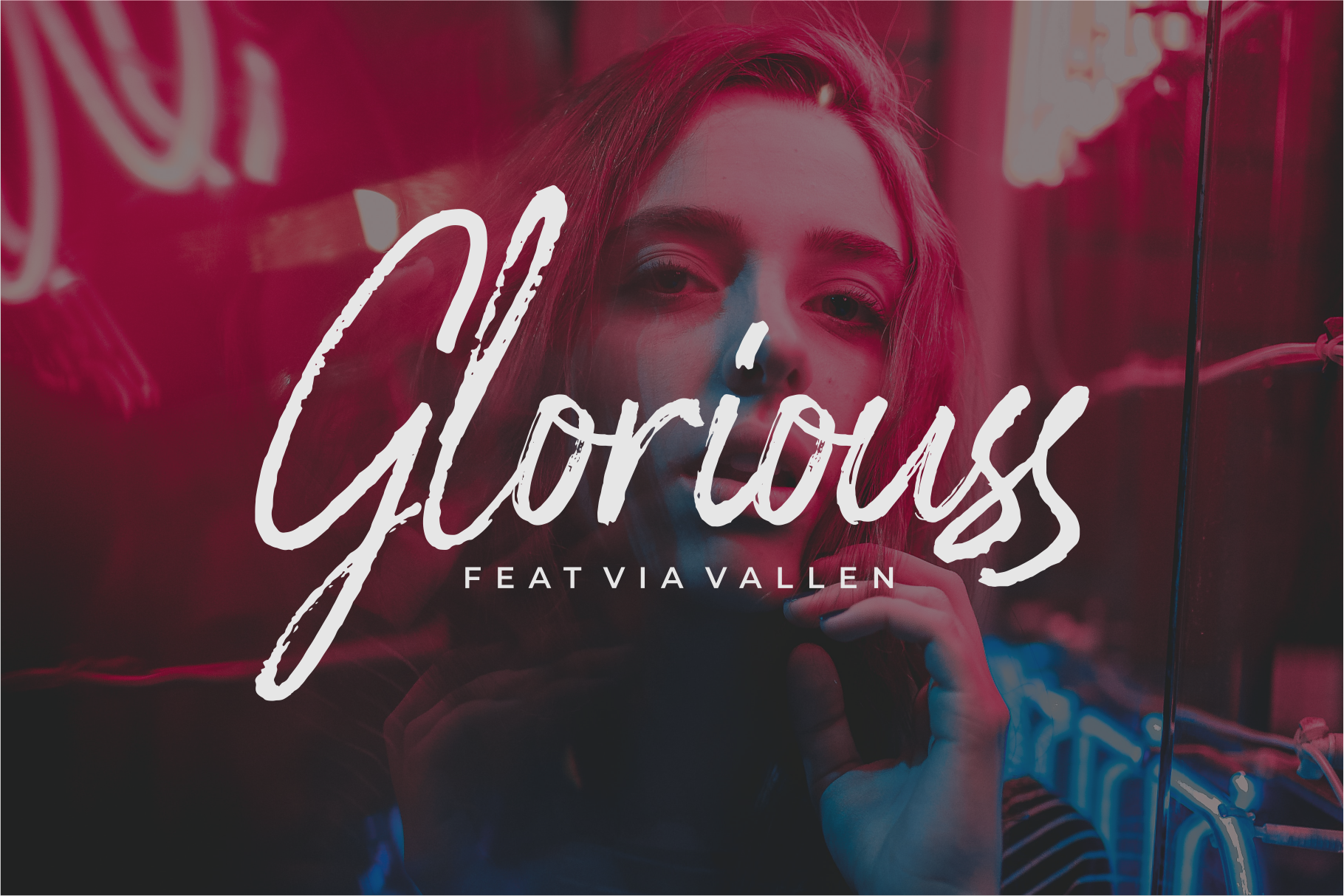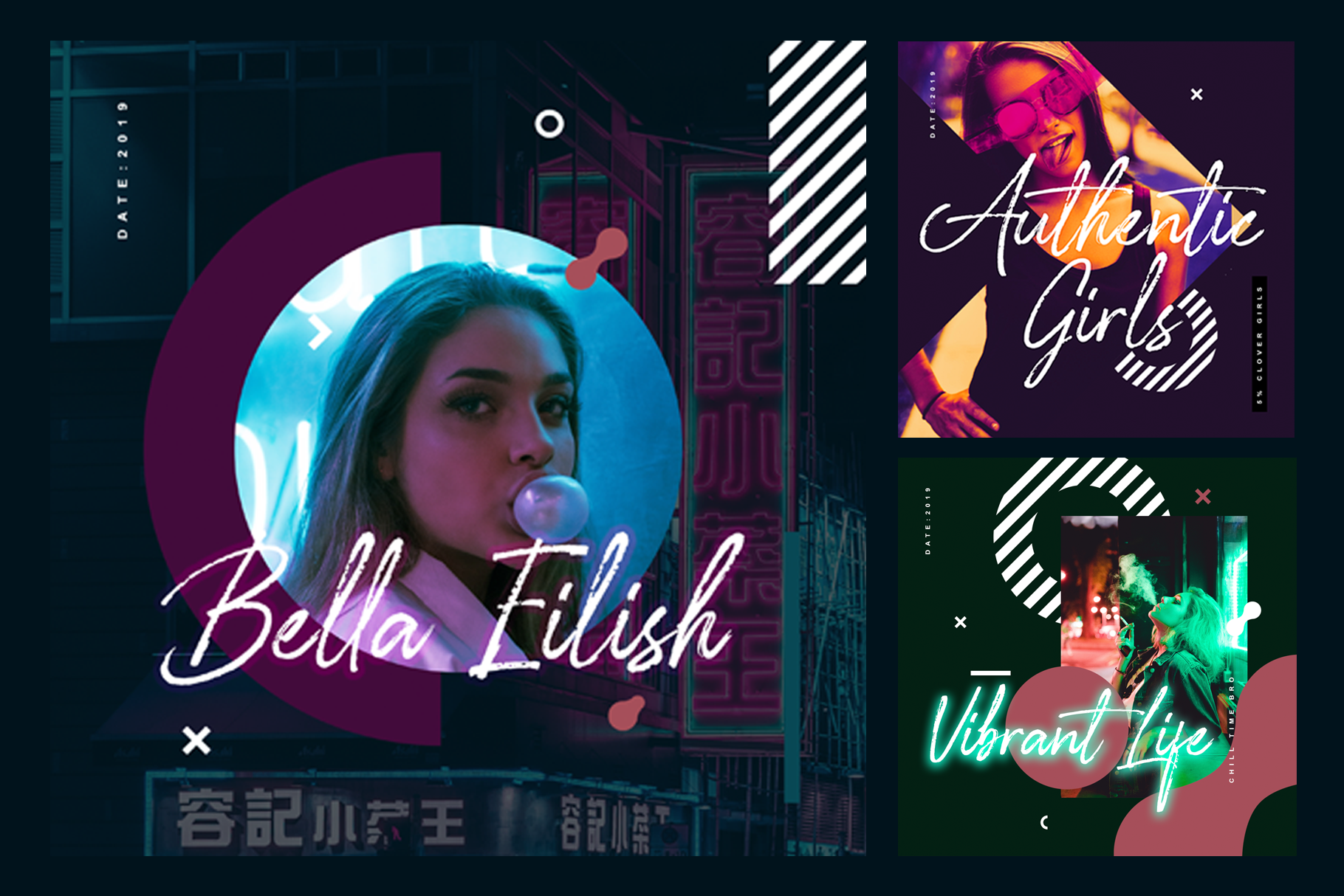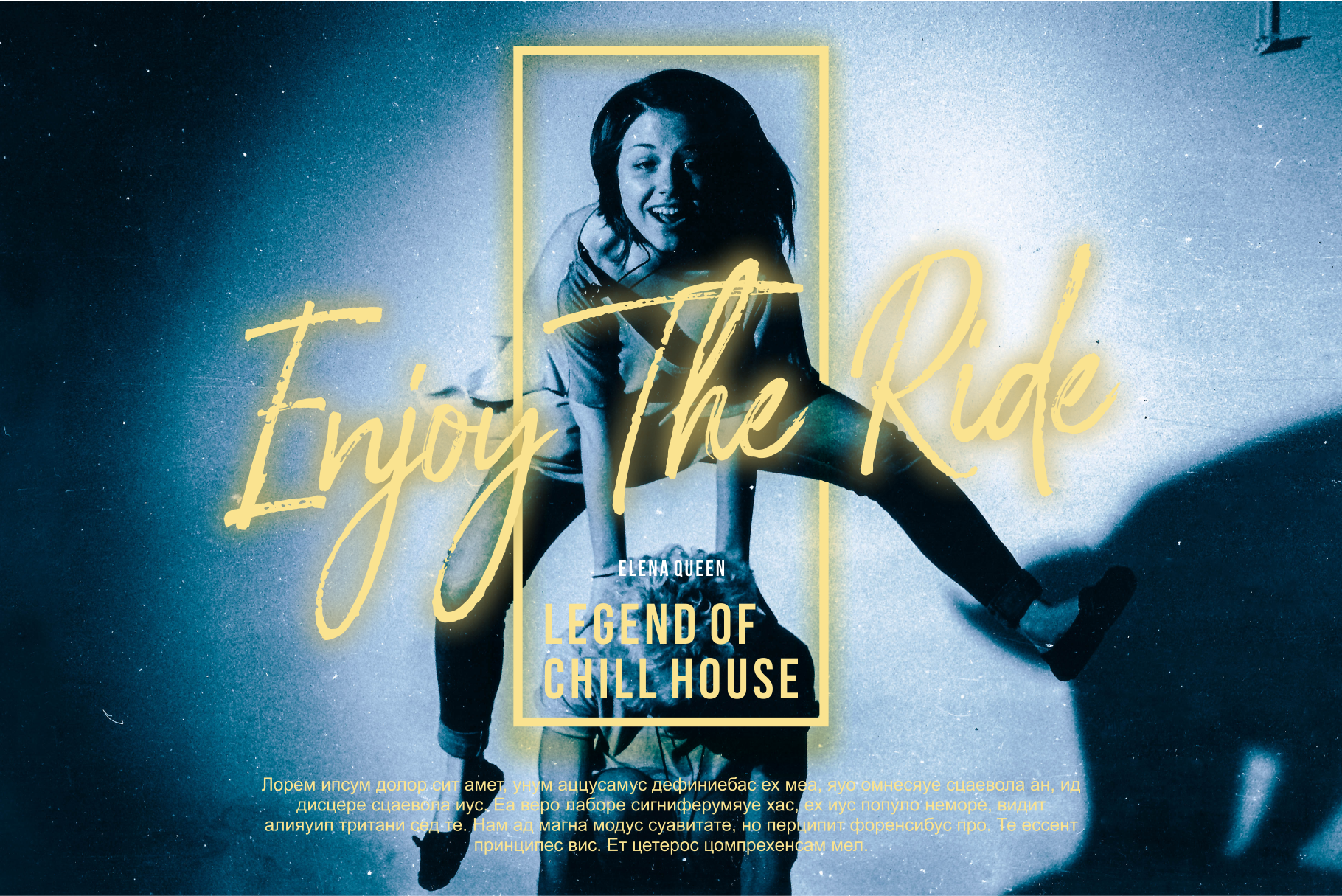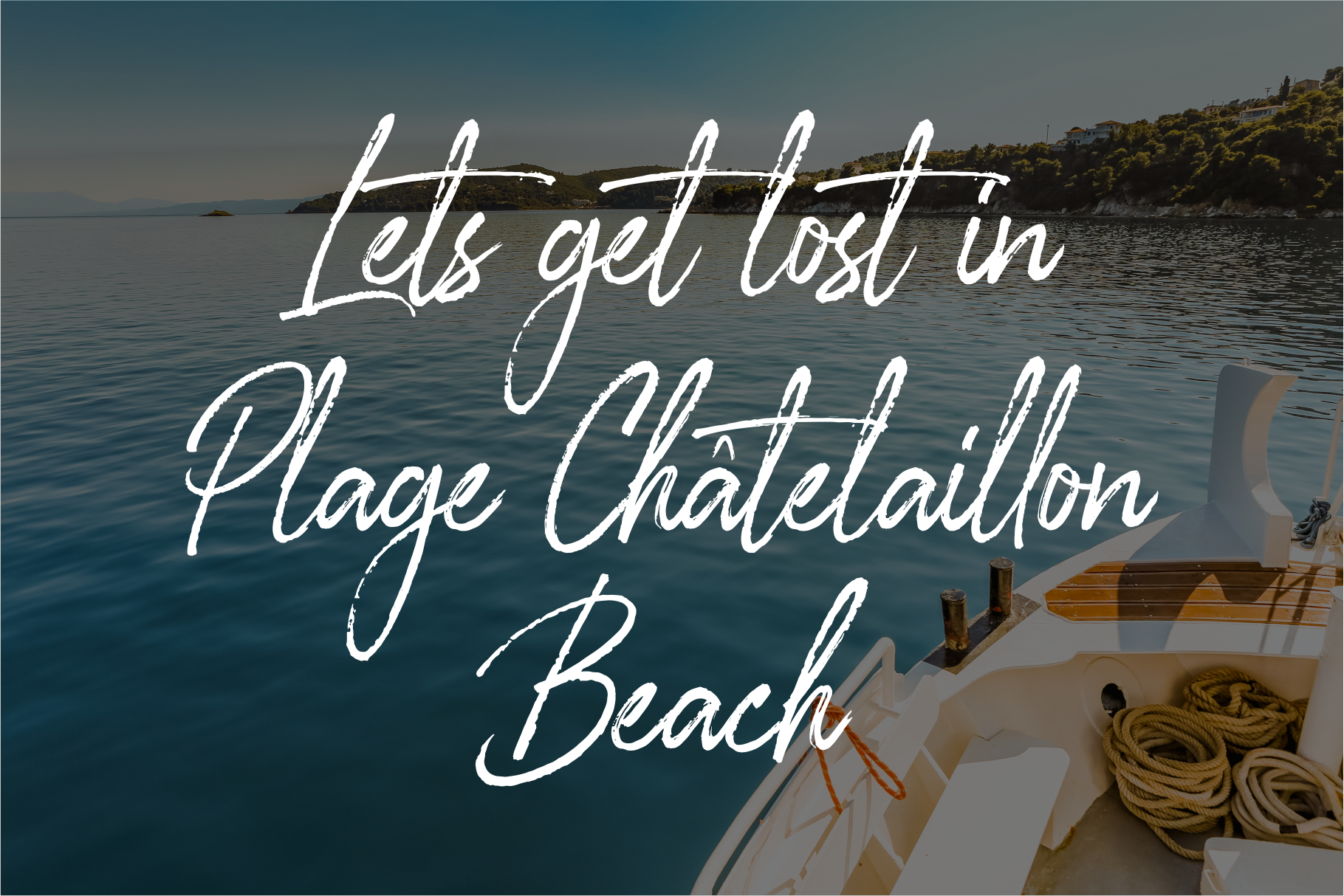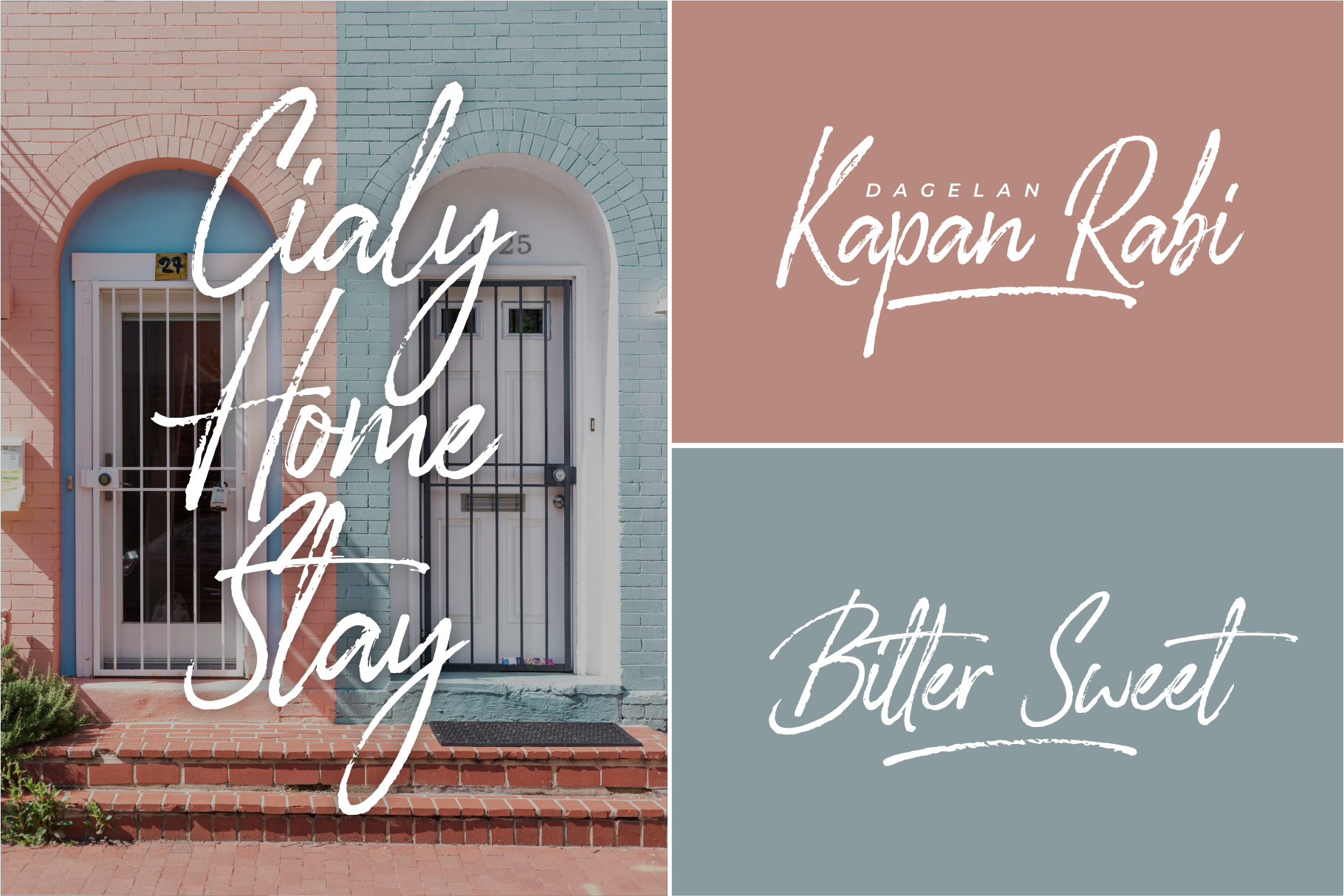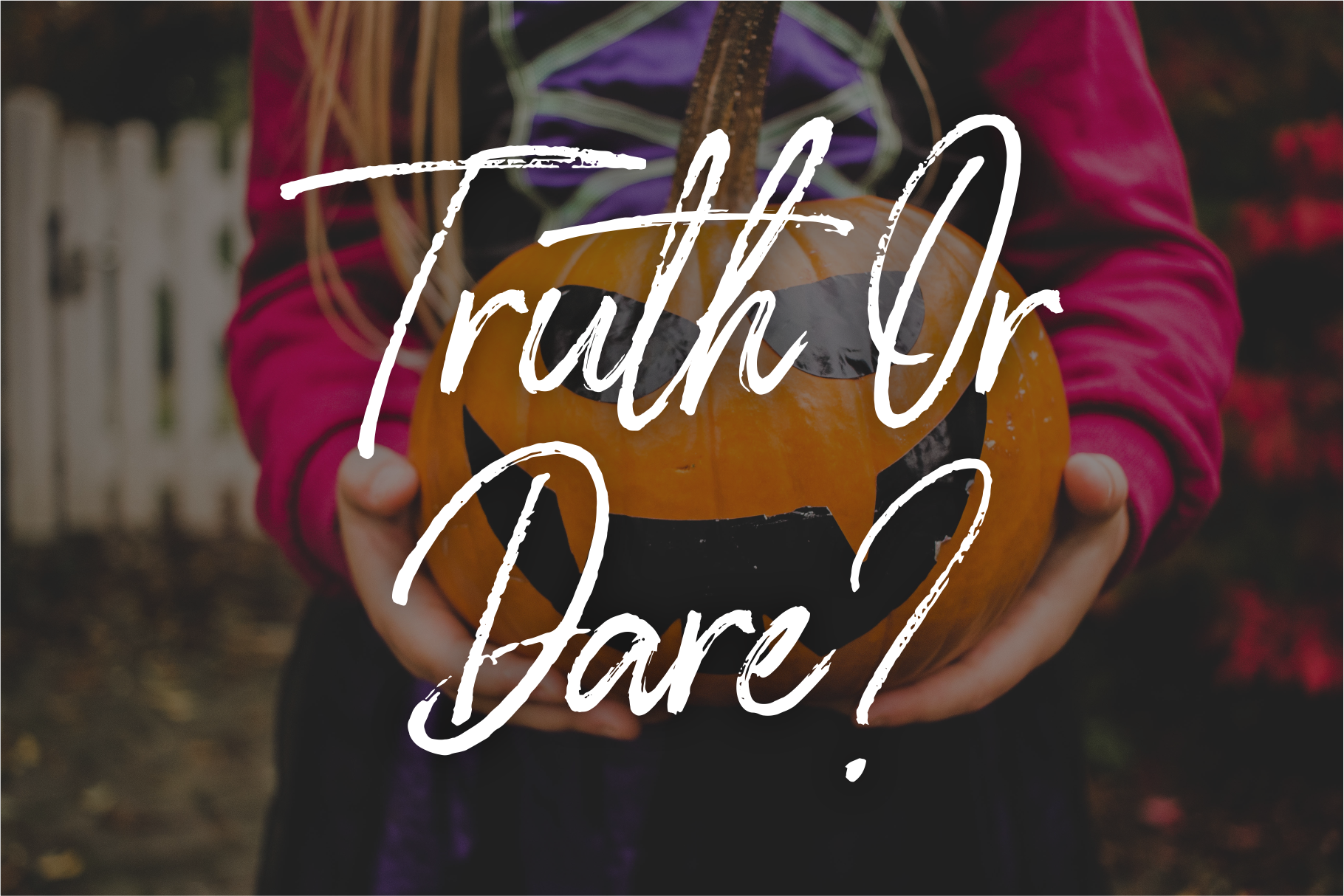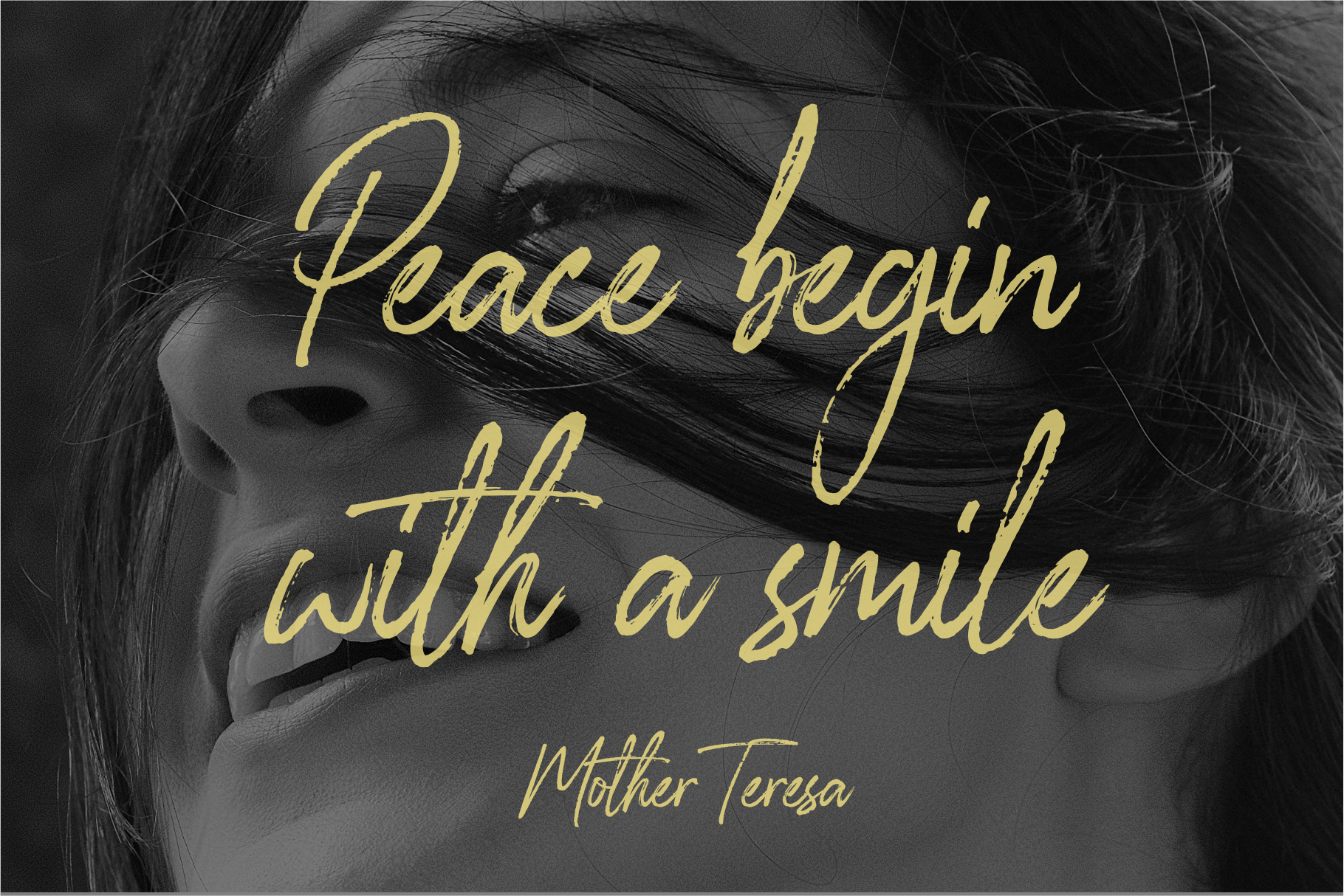
Glossy Night - Luxury Handbrush Font by 50Fox | Creative Market
Introducing Glossy Night Fonts - A versatile, luxury and authentic font with dynamic hand-drawn stroke. This natural stroke makes this font look so sexy and easily paired with other fonts. Complete with ligatures, swashes and international language characters. Glossy Night is perfect for create typographical designs, logos, quotes, packaging, banners, and overlaying text images. - What you get: 1. Glossy Night (ttf, otf, woff) 2. Glossy Night Swash (ttf, woff) - If you have any questions or suggestions – Just drop me a message Thanks for looking and have a wonderful day. | Glossy Night - Luxury Handbrush Font | 50Fox